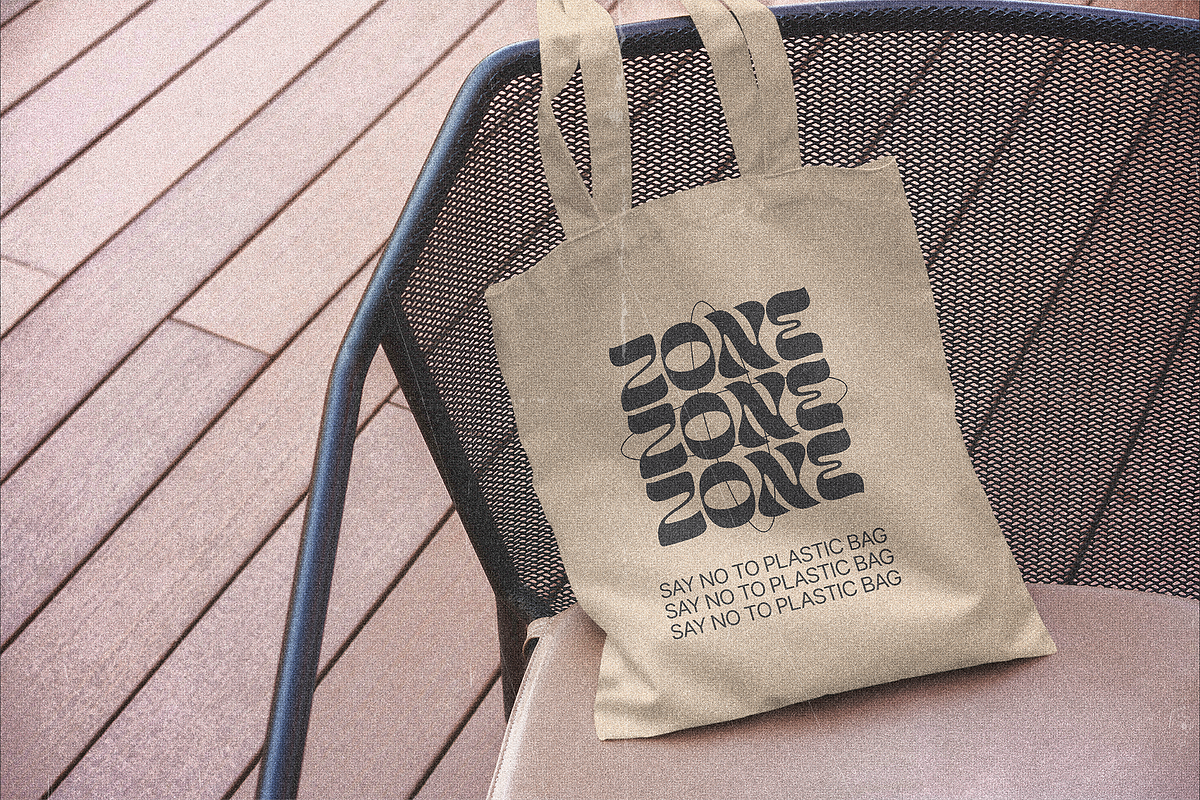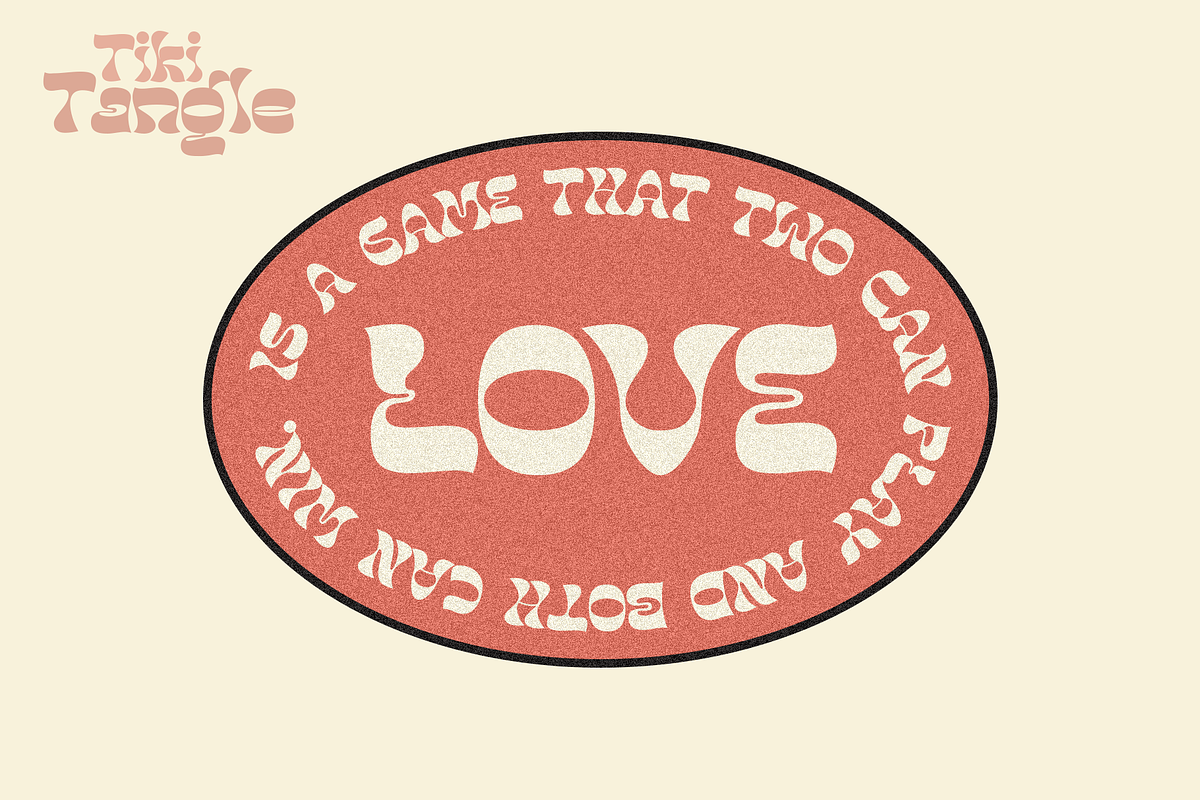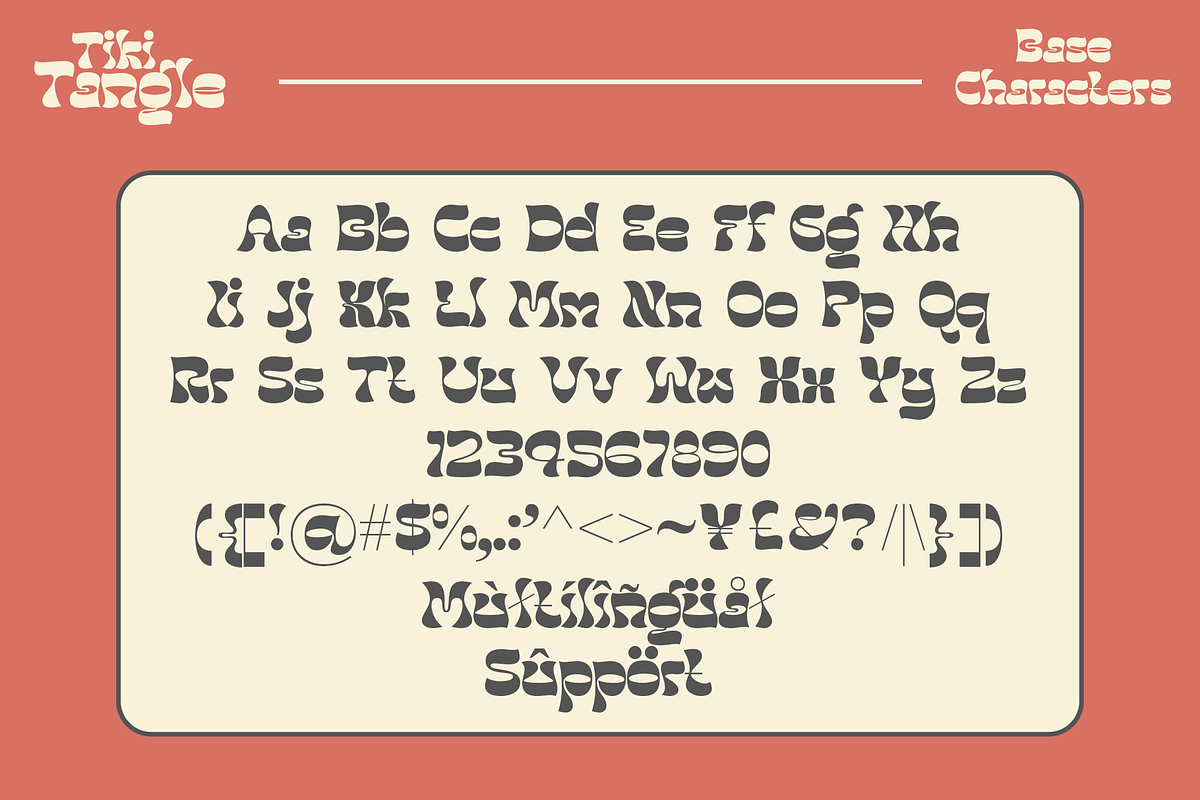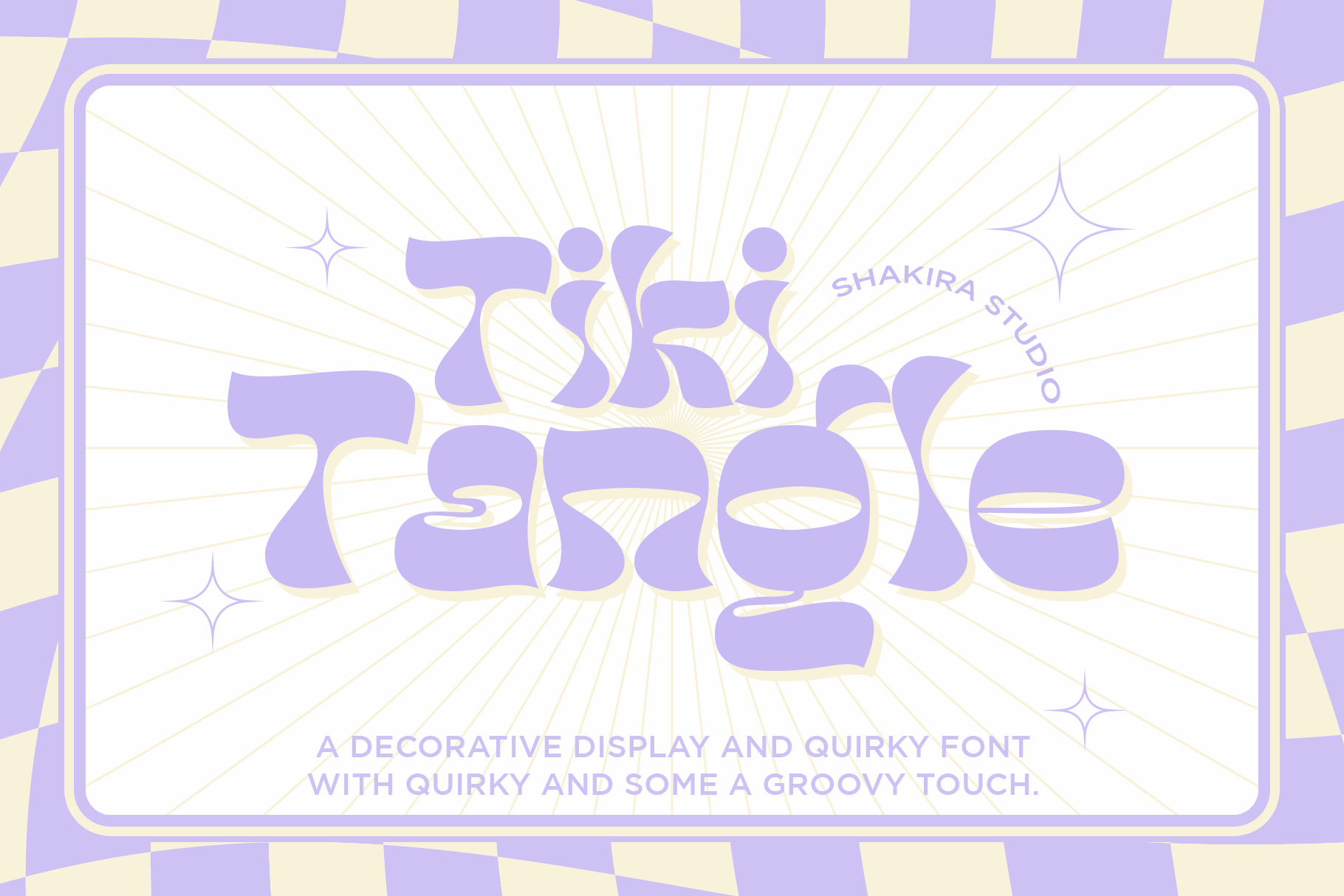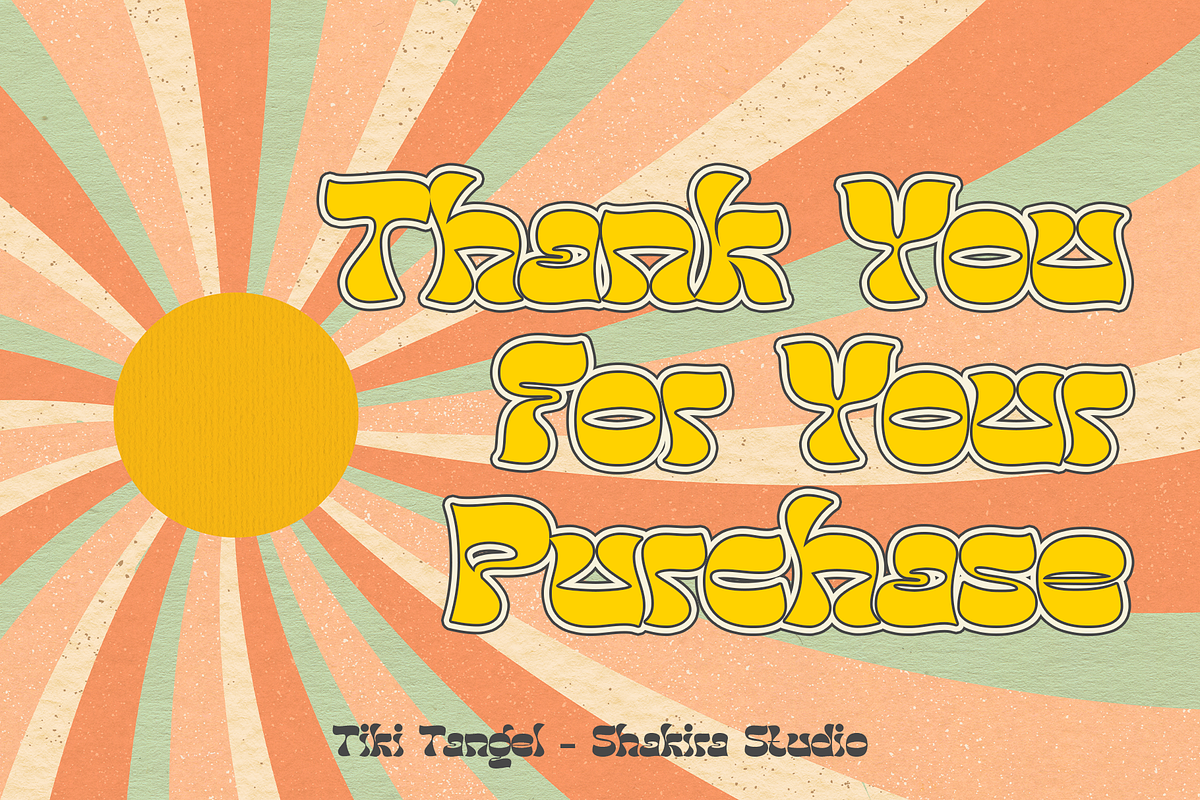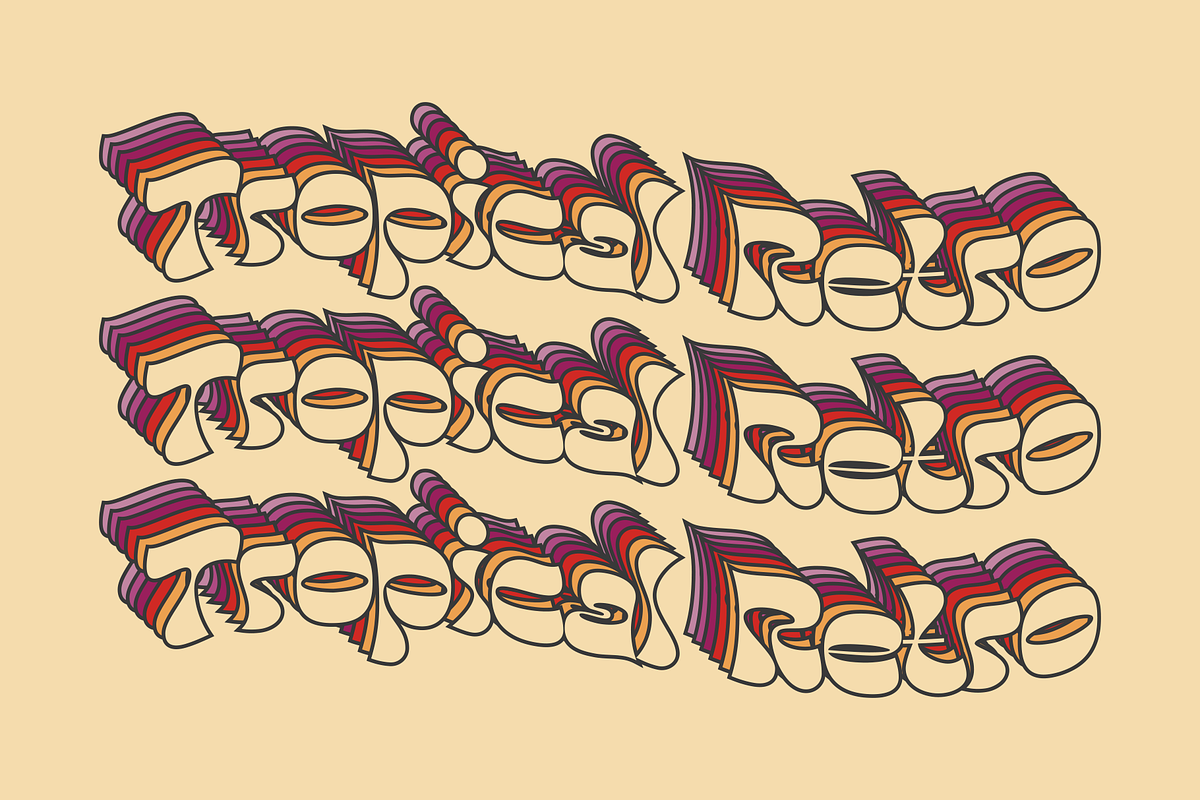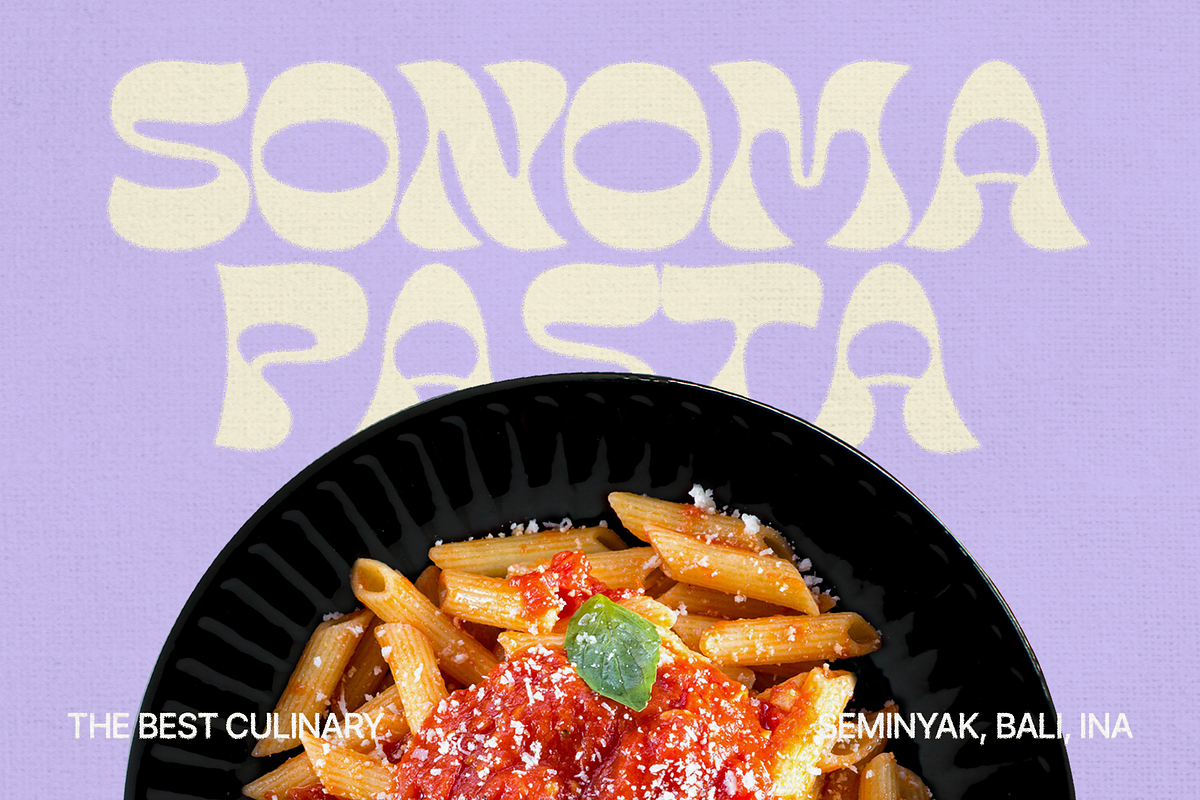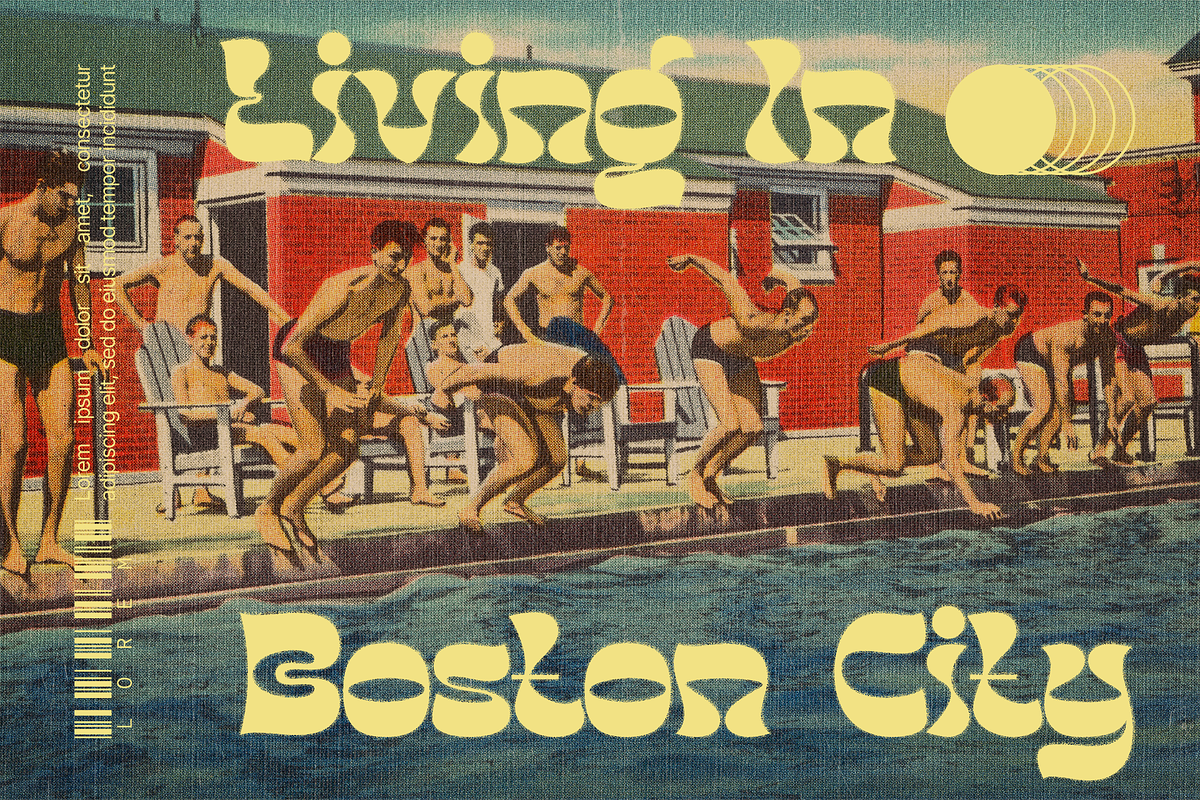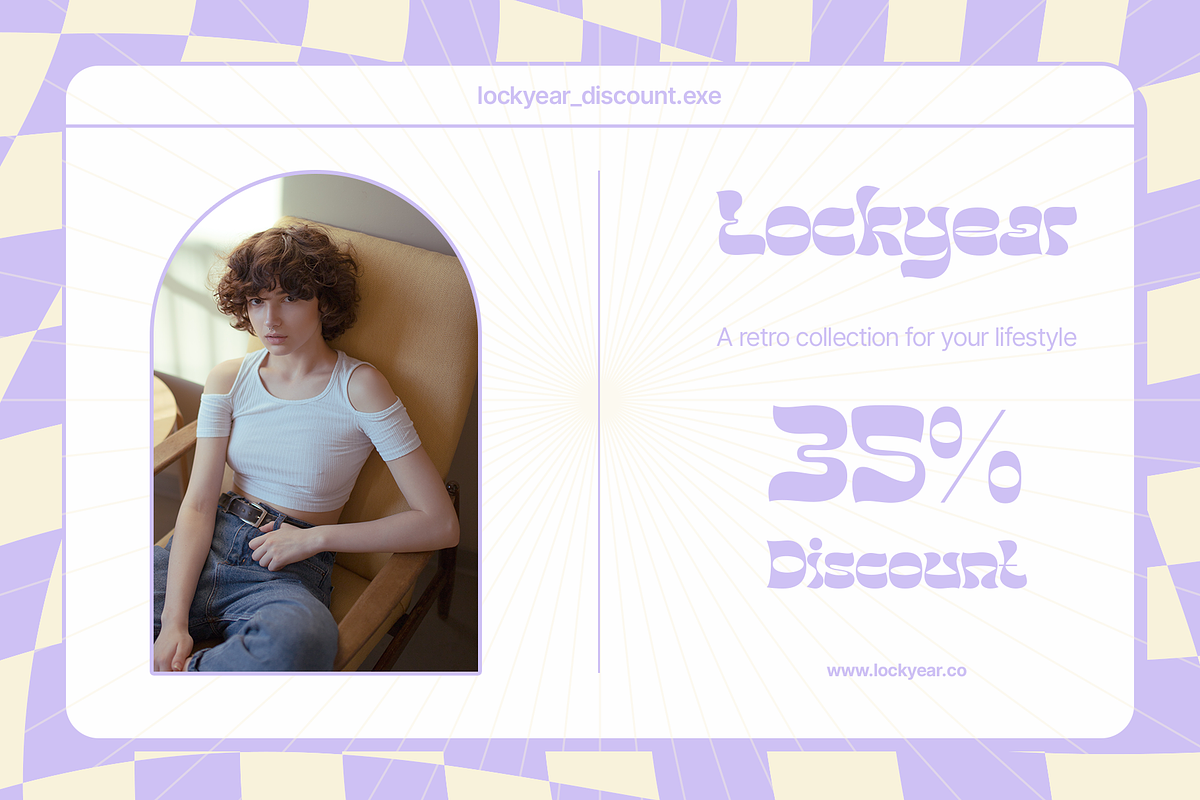
Tiki Tangle - Retro Display Font
Introducing Tiki Tangle - A Decorative and Classic Font Full of Retro Fun!
Tiki Tangle is the answer for designers looking for a retro touch and uniqueness in their designs. This decorative font captures the retro fun that's all the rage right now, creating a balance between nostalgic memories of the past and timeless uniqueness.
Each letter in Tiki Tangle is a work of art in itself, embracing a cute and unconventional retro aesthetic. Suitable for designers who want to add a touch of uniqueness to their projects, in line with contemporary design trends.
With Tiki Tangle, you have the creative freedom to turn your designs into eye-catching works of art. Whether you're designing a classic poster, eye-catching product labels, or unique social media graphics.
- Regular and Italic Version
- All Multilingual symbol
- Opentype features ( ligature, alternate )
Multilingual character supports : (Afrikaans, Albanian, Catalan, Croatian, Czech, Danish, Dutch, English, Estonian, Finnish, French, German, Hungarian, Icelandic, Italian, Lithuanian, Maltese, Norwegian, Polish, Portuguese, Slovenian, Spanish, Swedish, Turkish, Zulu)